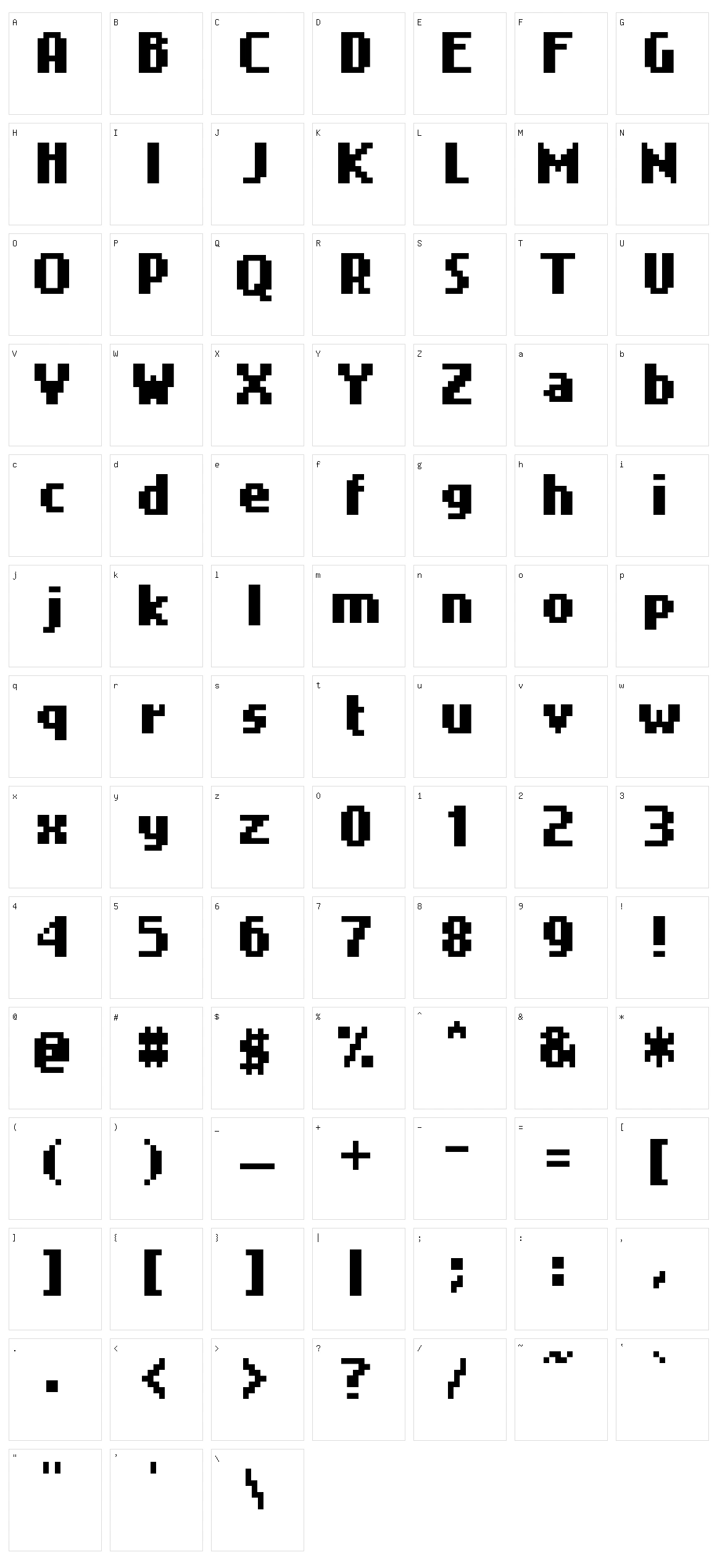
Nokia Cellphone FC
Designed by: Zeh Fernando
This is a font that emulates the bitmap font used by Nokia-based cell phones.
As the name implies ("Nokia Cellphone Small"), this is the "Small" font - used
on some menus, not the data fields (which it used a "big" font).
This was done because 1) I needed to use it on some projects and 2) I saw lots
of people asking for a font like this. So I had some experience in creating
bitmap-emulating truetype fonts (that is, a truetype, vector-based font that
works as if it was a bitmap-based font) and then I decided to do this thingie.
I send a message to my Nokia 6120 cell phone with every characters that the
cell phone had and then scanned the cellphone screens to rebuild it using
fontlab 3 and 4.
This is a "bitmap" font, a truetype font that emulates real bitmap fonts (with
no antialias, that is). It should be used at the same point size (8) or
multiples thereof (16, 24, 32) to produce the best result. When used properly,
it renders as the font found on the Nokia cellphones software.
Modifications
=============
* VERSION 2.2 - A minor correction on wordspacing which got increased on the
last version. Now it's correct again (from 5 to 4 pixels).
* VERSION 2.1 - Small additions, due to a BIG help by Panu Tuominen from
PanuWorld (www.panuworld.net). Added characters:
Ý ý - Y/y with acute
Å å - A/a with ring
Ÿ ÿ - Y/y with diaeresis (Y being *done from certain clues* - not sure it's right, but it probably is)
` - grave accent (unicode 0060)
* VERSION 2.0 - Took it to a new metric system (more fit for "bitmap fonts"),
fixed lots of small polygon discrepancies, and fixed some Flash filling holes
bugs. I've changed the leading too; since there's no standard leading on the
cellphone menus I've chosen one of my own.
Also, since I got a new Nokia (3310) cellphone, there's ton of new characters
available that I have added to the font. There are now 164 glyphs on the Nokia
cellphone truetype font. Here's what have been added:
Ä ä - A/a with diaeresis
È è - E/e with grave
Ë ë - E/e with diaeresis
Ï ï - I/i with diaeresis
Î î - I/i with circumflex
Ò ò - O/o with grave
Ö ö - O/o with diaeresis
Ù ù - U/u with grave
Û û - U/u with circumflex
Ñ ñ - N/n with tilde
Ø ø - O/o with slash/stroke
* * - G/g with breve (turkish codepage)
¤ - currency sign
Æ - latin capital letter AE
æ - latin small letter AE
ß - greek beta (I think)
€ - Euro
* VERSION 1.2 - Optimized for Macromedia Flash usage (no hollows) and with
a MAC TTF version provided by Chris Moritz (members.home.net/fieldofaction3).